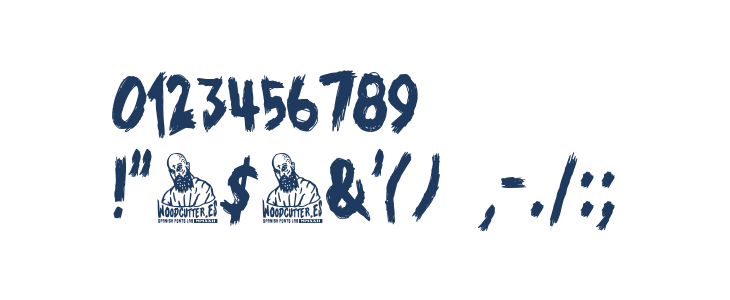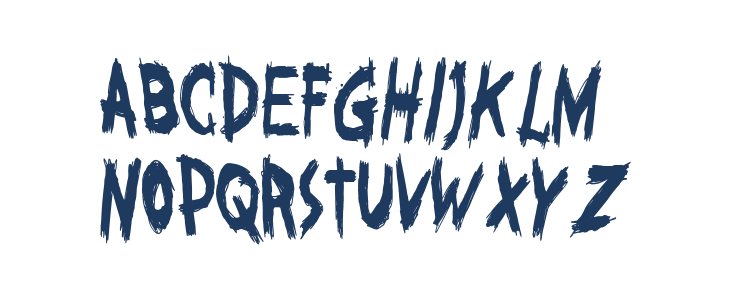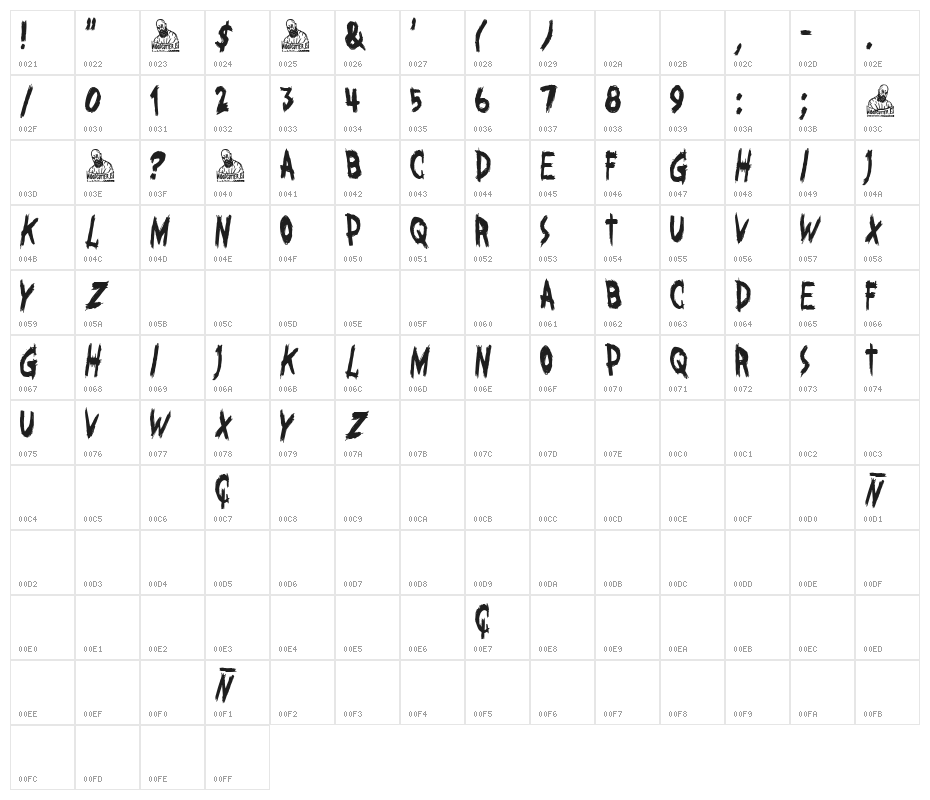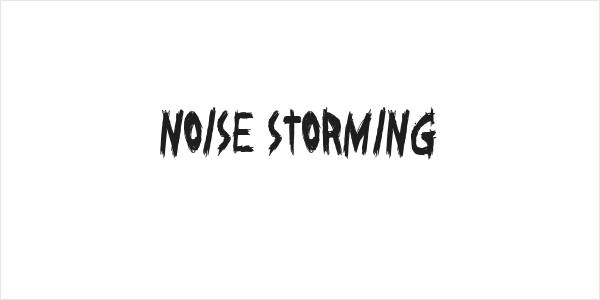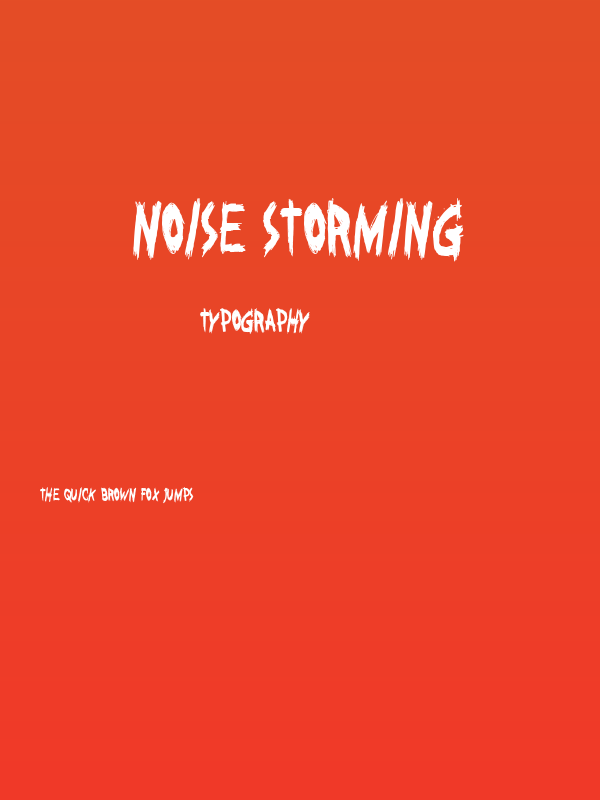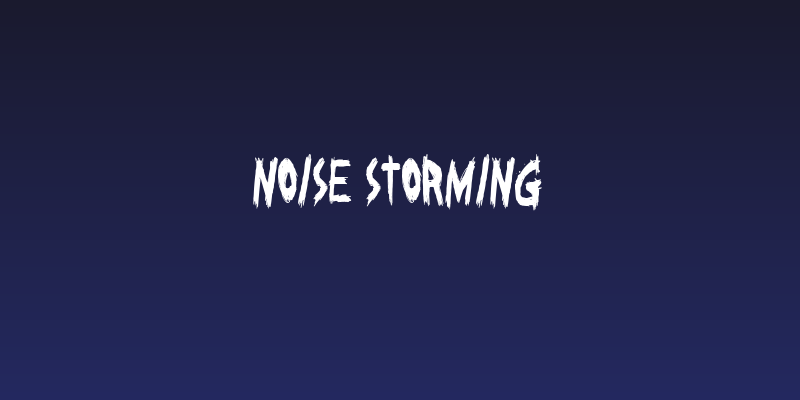
Noise Storming Font
Noise Storming Description
A highly expressive, rough, and jagged font with brush-like strokes and an energetic, chaotic appearance. The characters are irregular and bold, evoking a sense of urgency and intensity.
| Overall Style | Decorative, Grunge, Energetic |
| Use Case | Headlines, Posters, Logos, Event Promotions |
| Proposed Projects | Horror posters, music album covers, Halloween event flyers, comic book titles, extreme sports branding. |